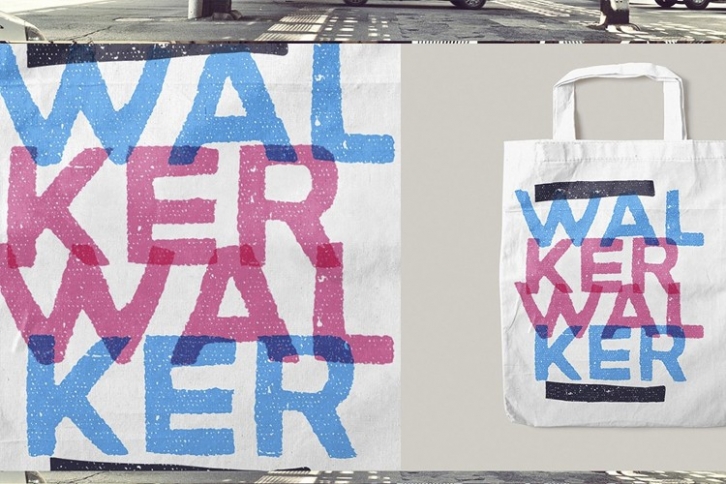
Macabro Danger is a trendy and unique font with an authentic style. It was designed by RoTypo and it's a great choice for creative people who need such a font. It was released on November 5, 2017 and the file size is 15.56 MB. Macabro Danger will add an organic vibe to any design idea!